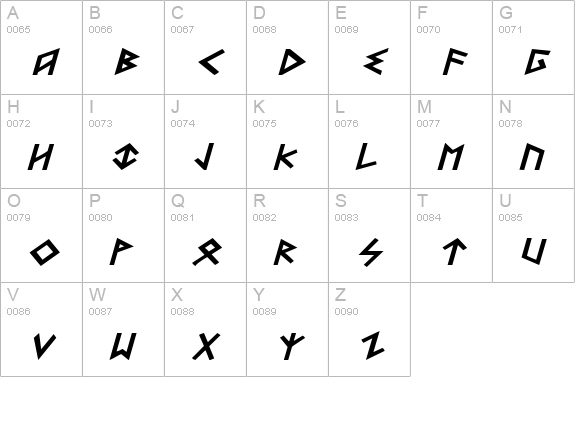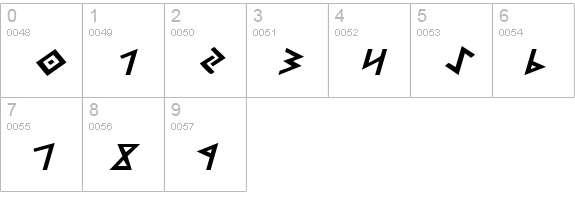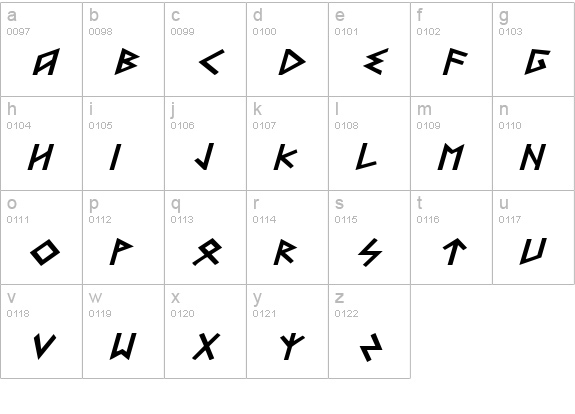
Heorot Expanded Italic Font Details
Heorot Expanded Italic is a distinctive, extended-width, italic variant in the Heorot typeface family \xE2\x80\x94 well suited to design and typography projects.
Heorot Expanded Italic font is a modern and stylish typeface that exudes elegance and sophistication. Its sleek and elongated design makes it perfect for adding a touch of luxury to your projects. The italicized version of Heorot Expanded adds a dynamic and artistic flair to your text, making it stand out in a subtle yet impactful way. This versatile font is ideal for a wide range of design projects, from branding and advertising to invitations and packaging. Whether you're looking to create a sleek and contemporary look or add a touch of refinement to your designs, Heorot Expanded Italic is sure to impress. Best of all, Heorot Expanded Italic font is available for free download at FontsMarket.com. So go ahead and elevate your designs with this exquisite typeface without breaking the bank. Download it now and start creating stunning visuals that will leave a lasting impression.